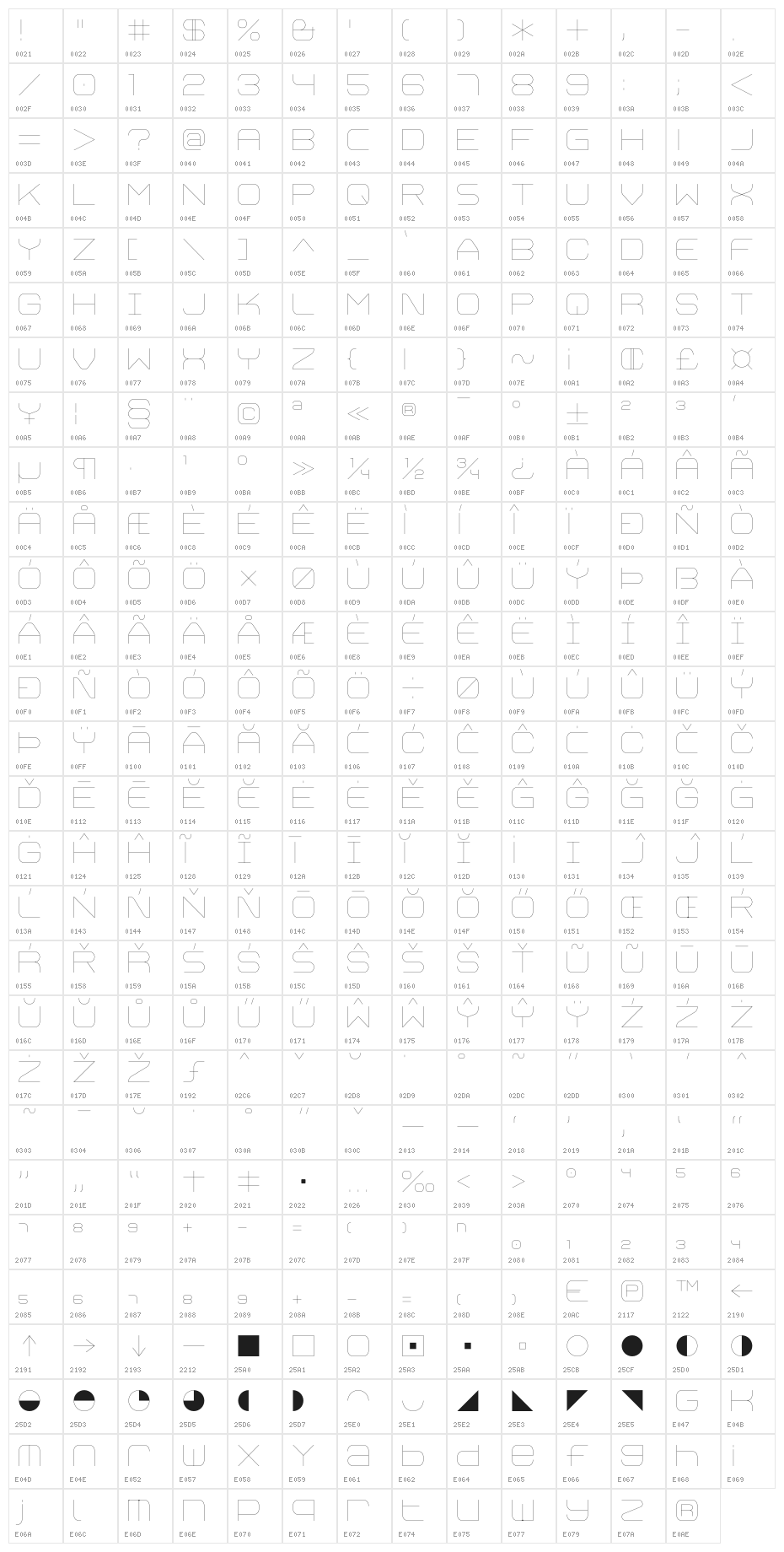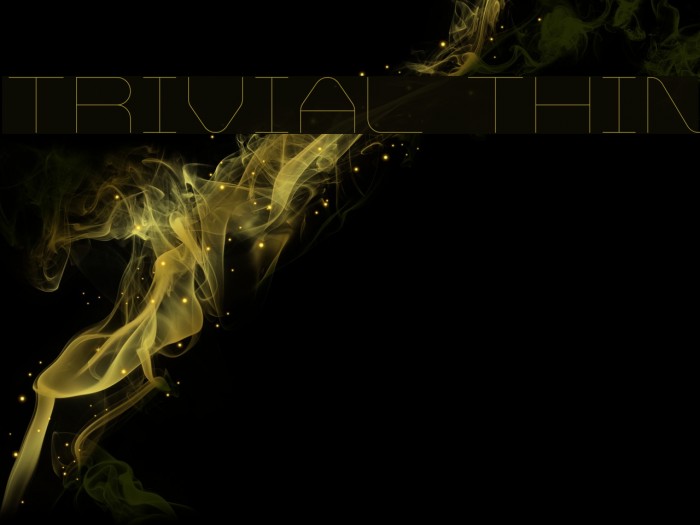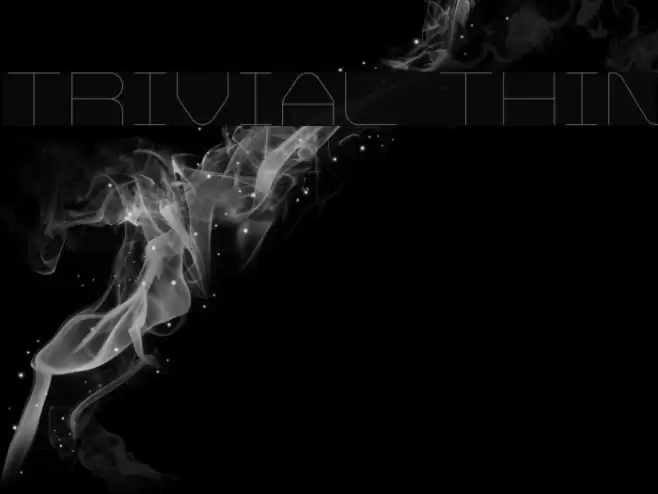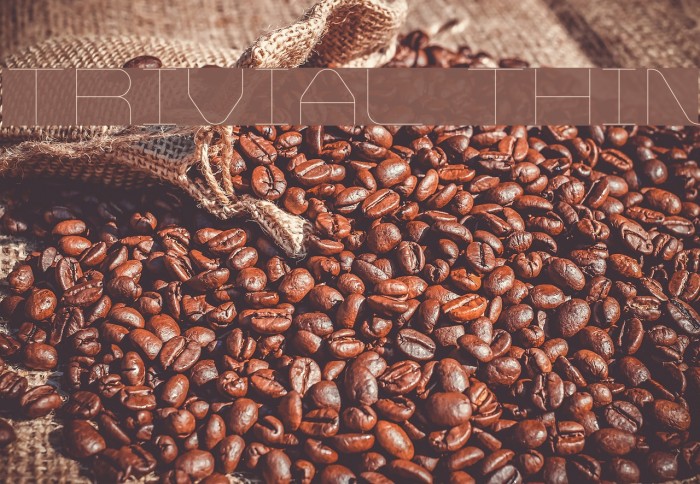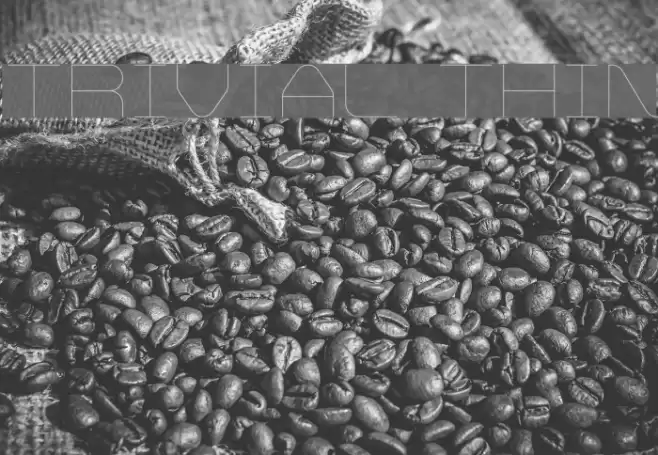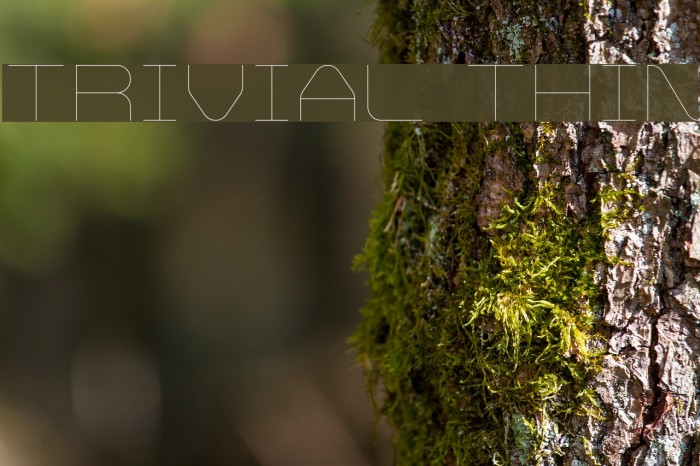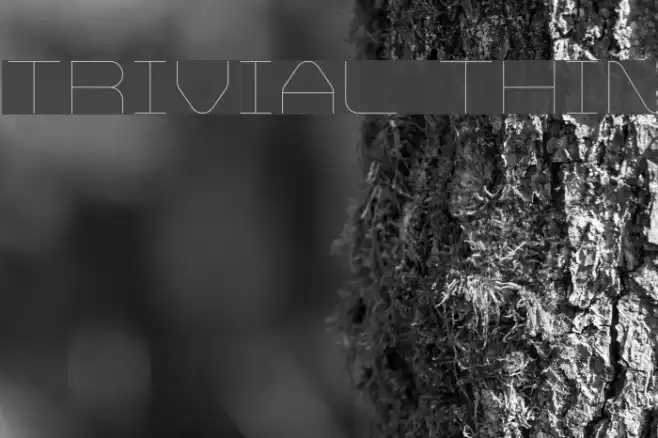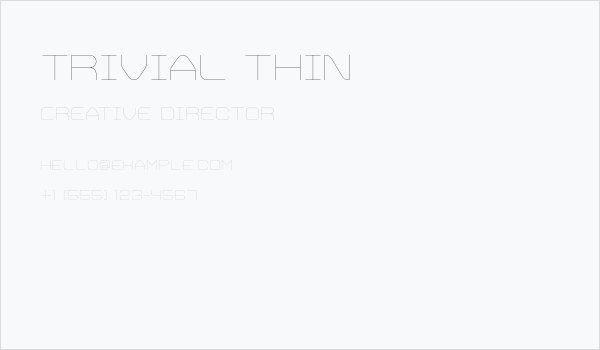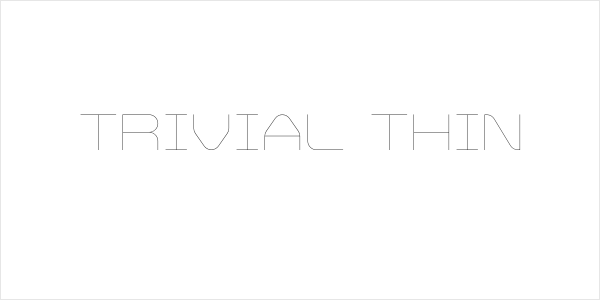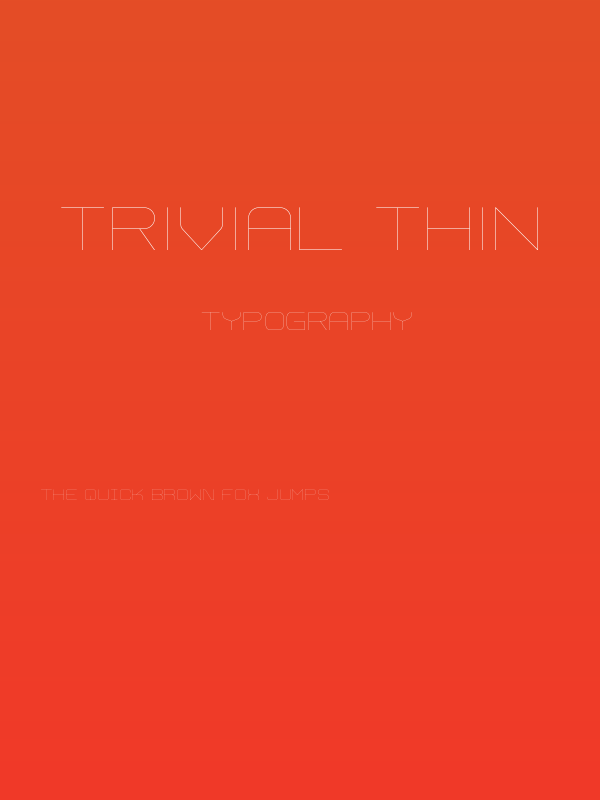
Trivial Thin Font
Trivial Thin Description
This font features a minimalist and geometric design, characterized by its thin, linear strokes and open forms. The characters are constructed with precision, offering a modern and futuristic aesthetic. The uppercase and lowercase letters share a consistent style, emphasizing uniformity and balance. The numerals and special characters maintain the same sleek and streamlined appearance, making them easily readable. This font's simplicity and elegance make it suitable for a variety of design applications where a clean and contemporary look is desired.
| Use Case | Logos, Headlines, Digital interfaces |
| Proposed Projects | Ideal for tech branding, modern posters, digital interfaces, and minimalist design projects. |